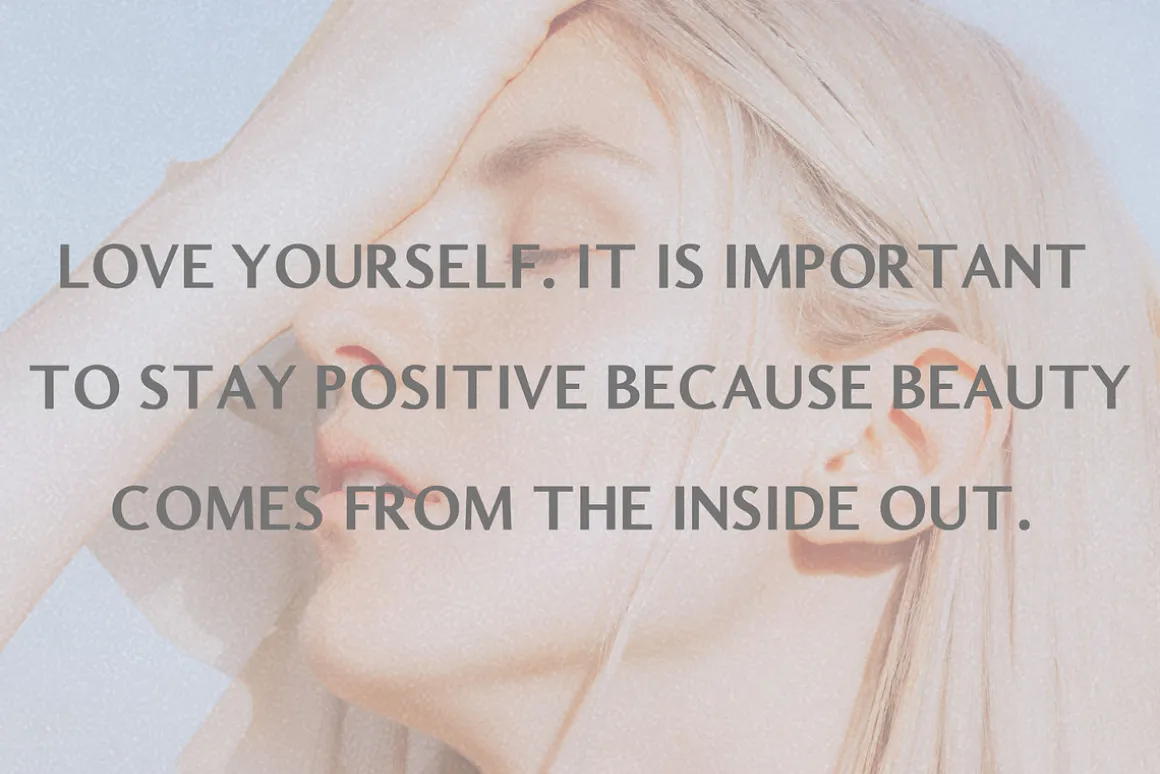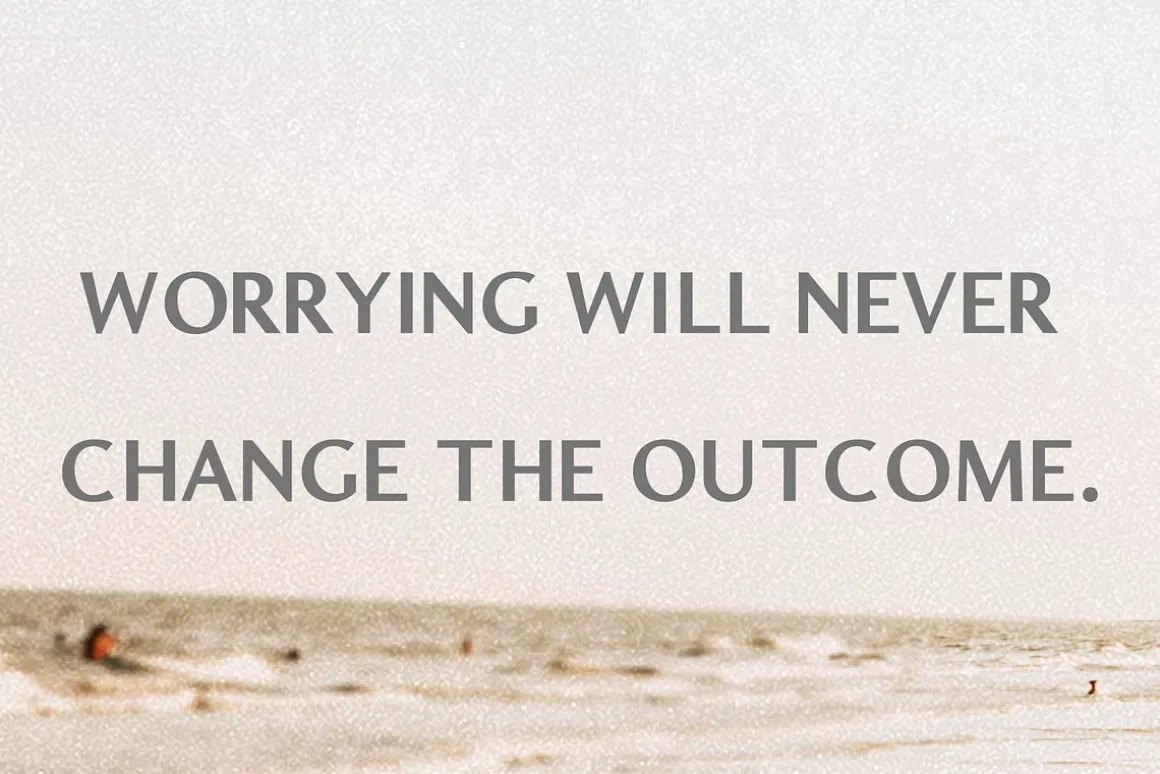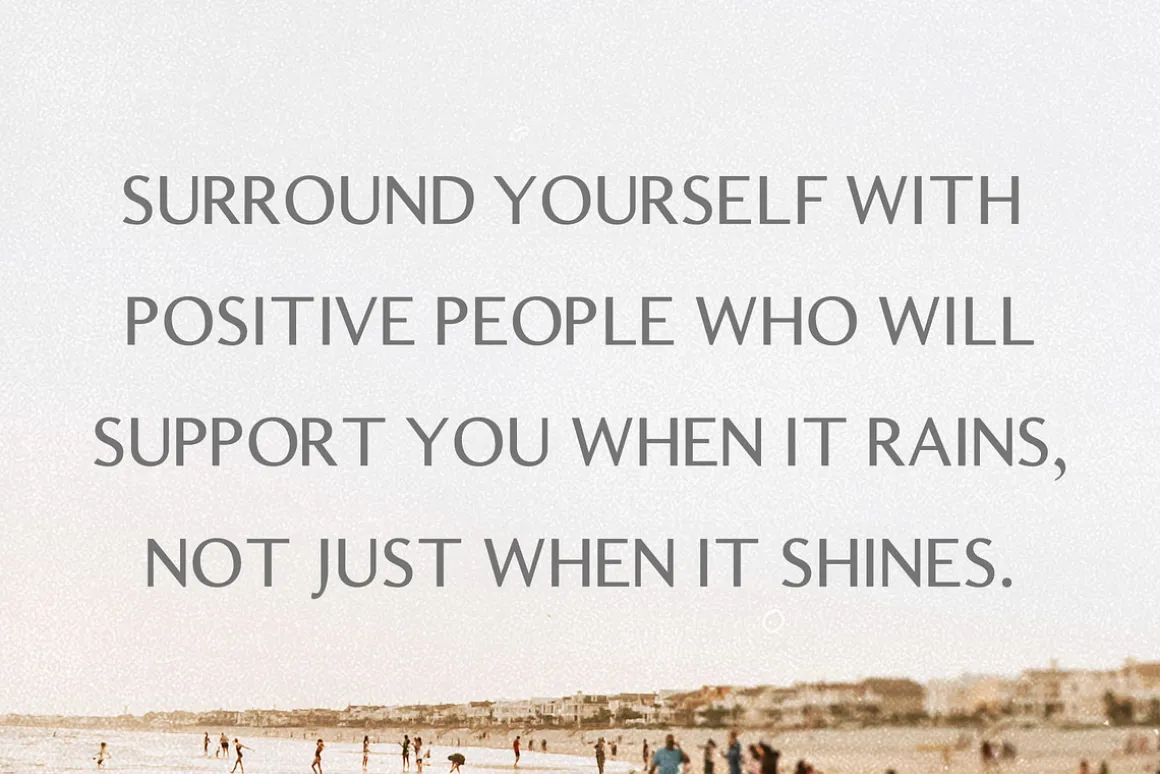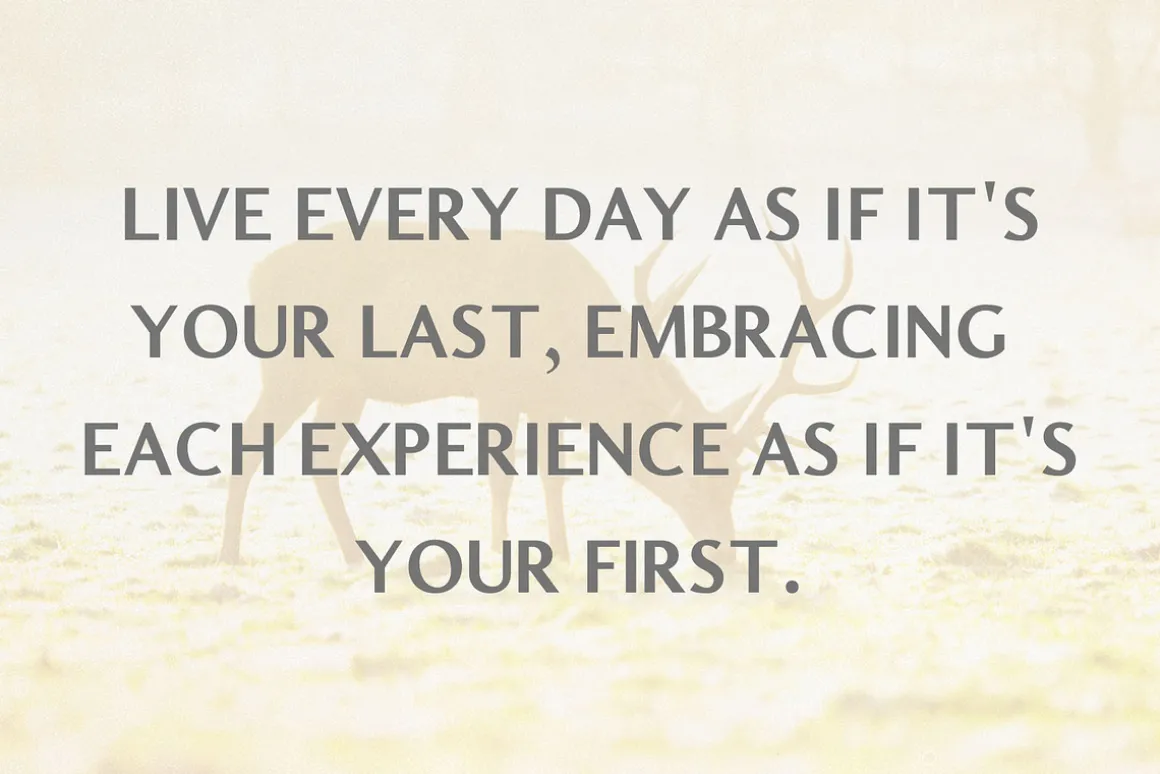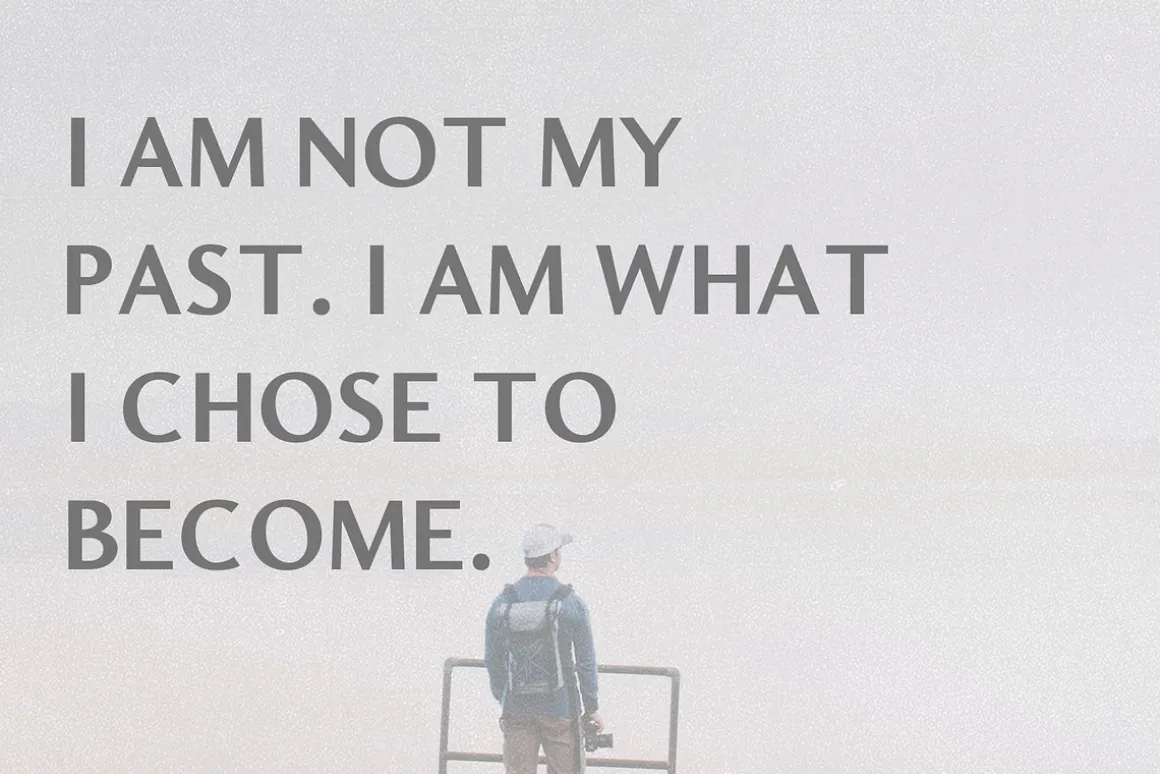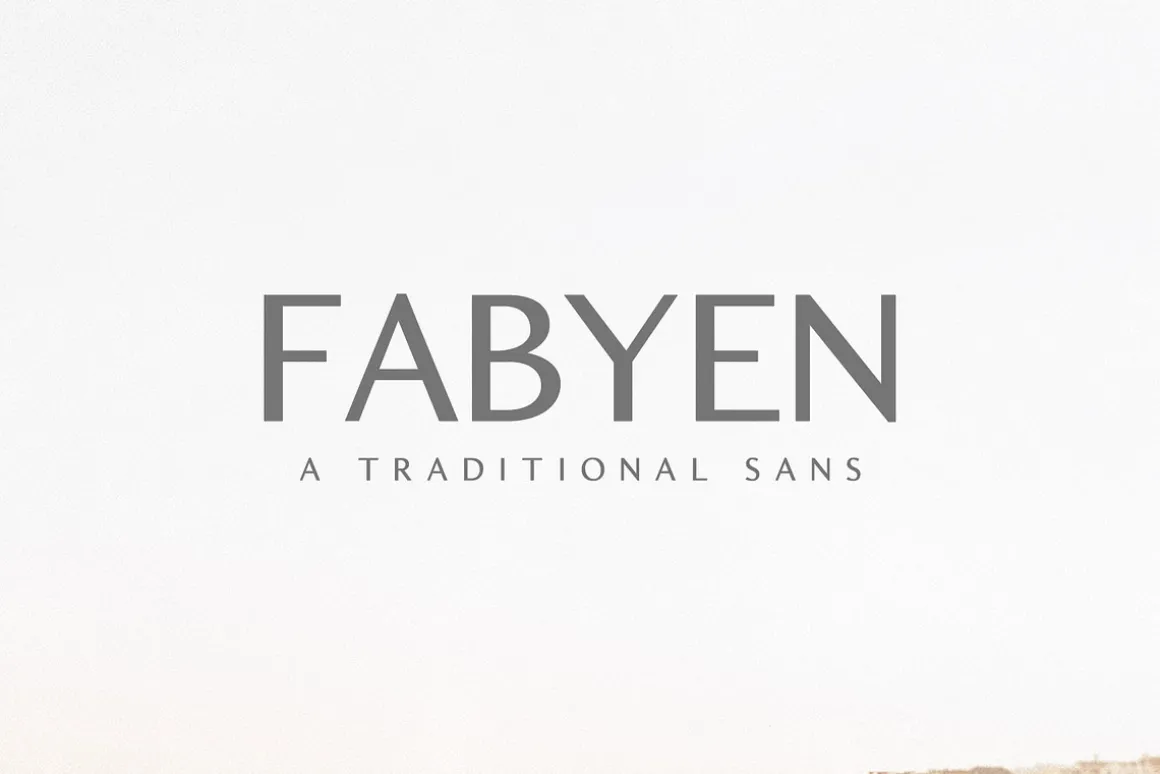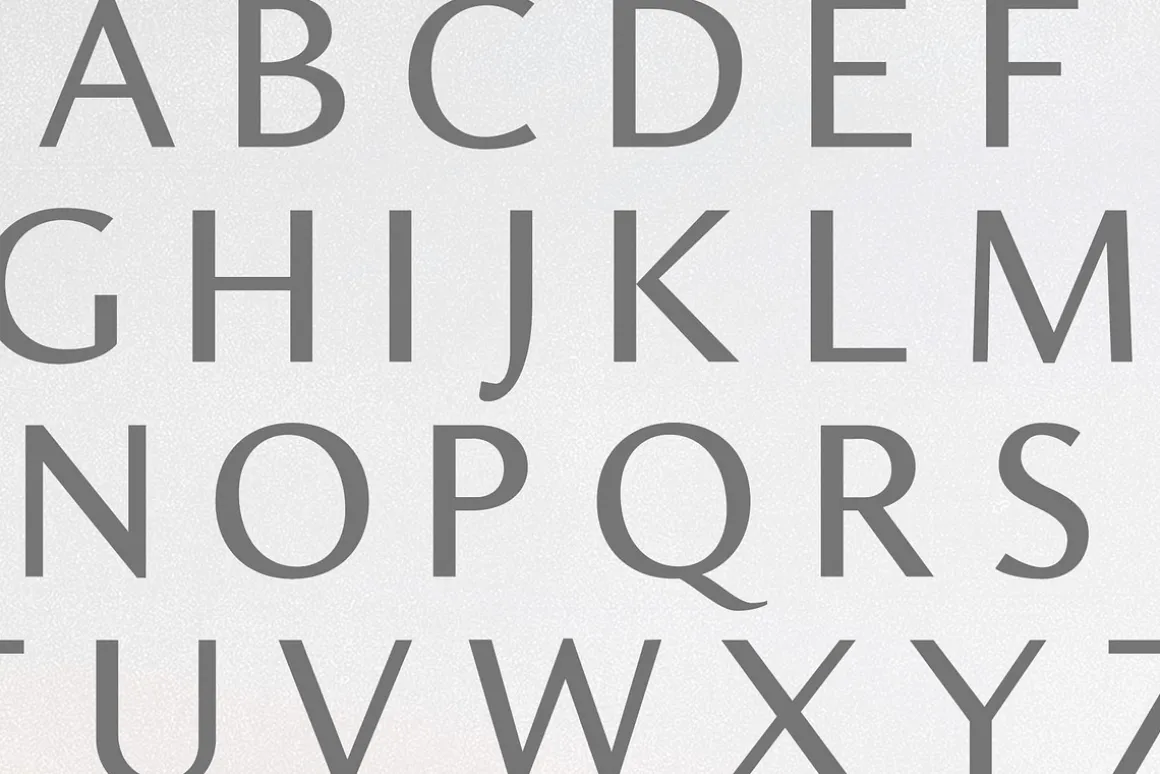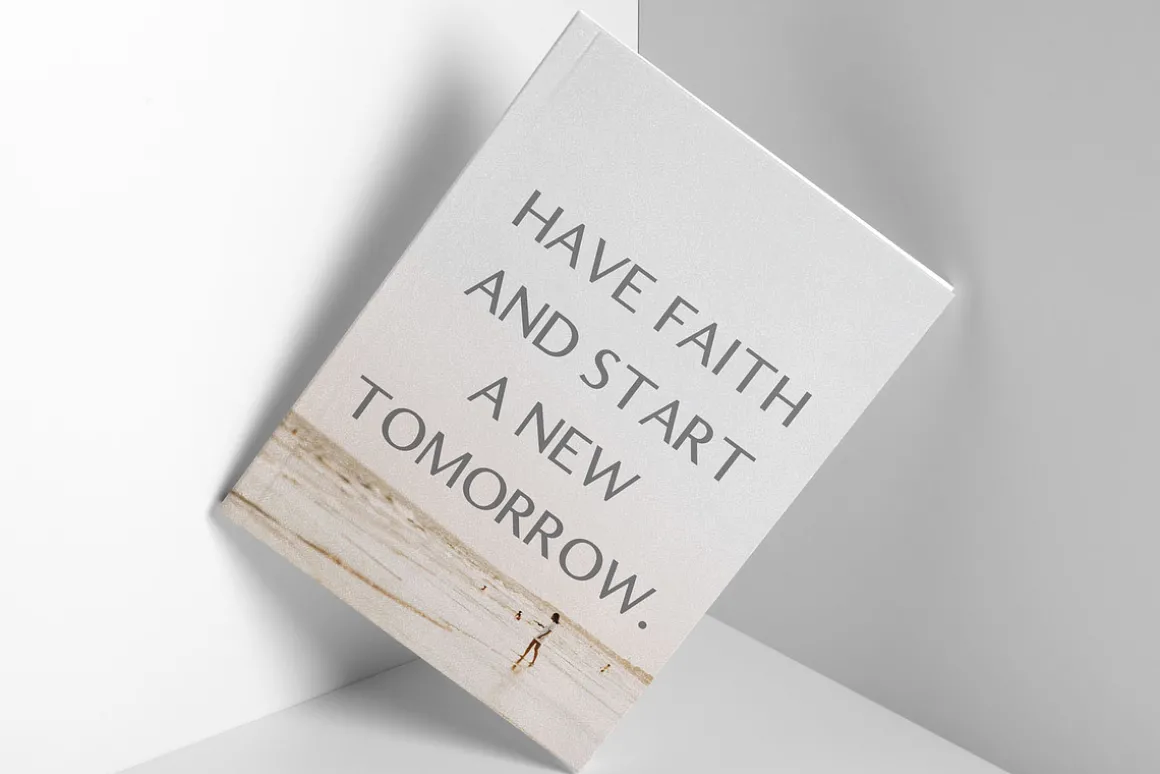
Fabyen is a traditional and reliable sans serif typeface. It comes with 4 weights: Regular, Light, Round and Bold versions, which contains complete basic glyphs with multilingual support. This font will be great for packaging, presentations, logo, headlines, lettering, posters, branding, quotes, titles, magazines headings, web layouts, advertising, invitations, packaging design, books, and nearly any creative design.
Fabyen Font Features:
- Uppercase Letters
- Lowercase Letters
- Numbers & Punctuation
- Non English Characters ( Latin Supplement + Latin Extended A)